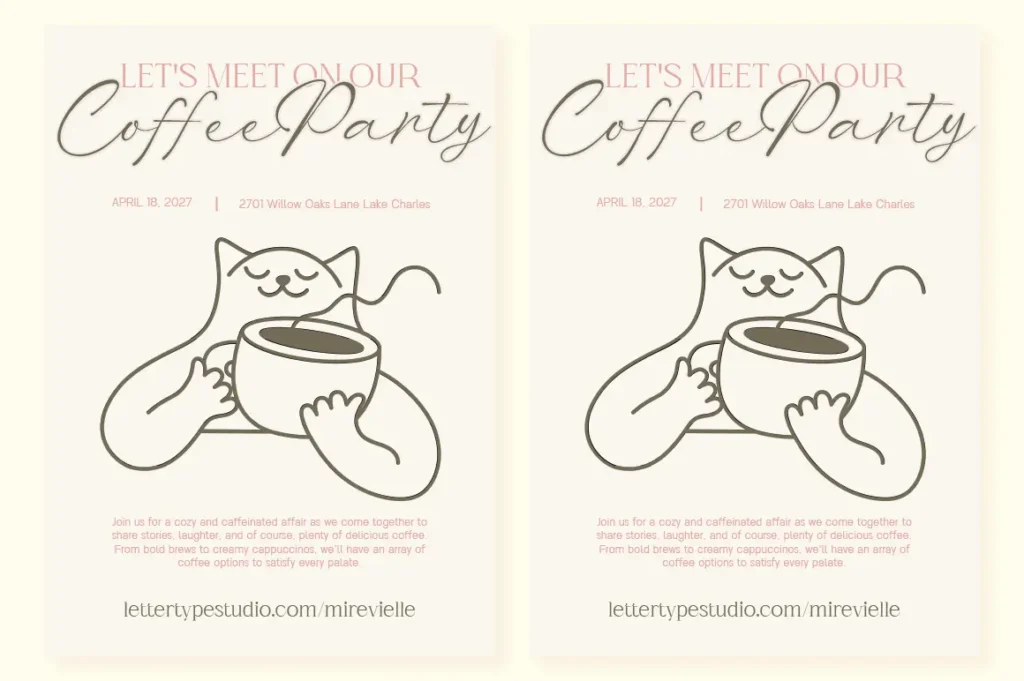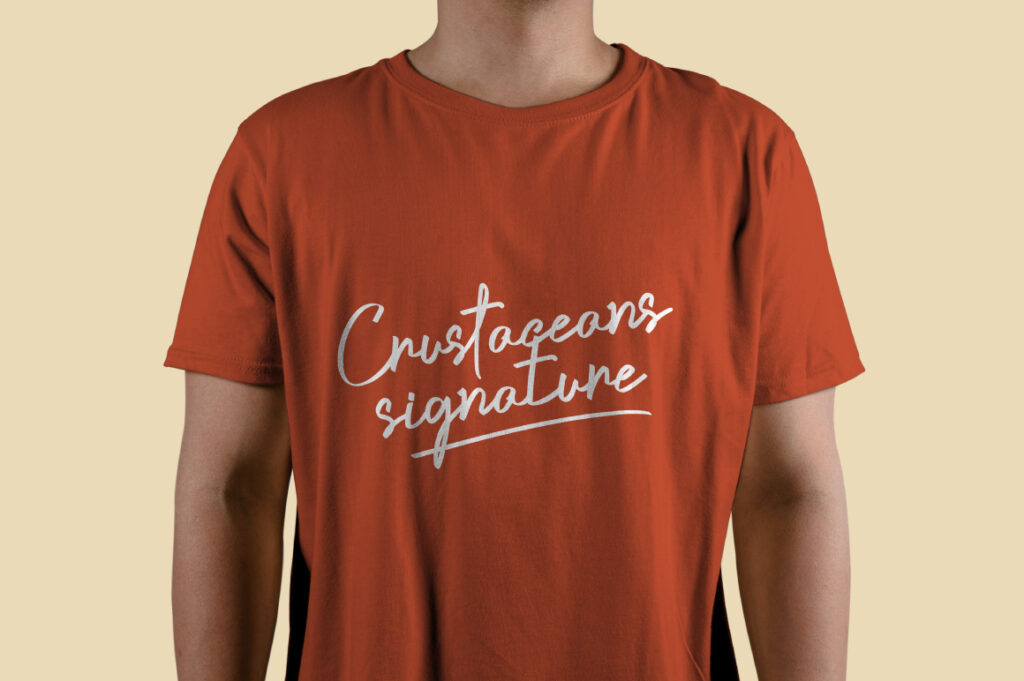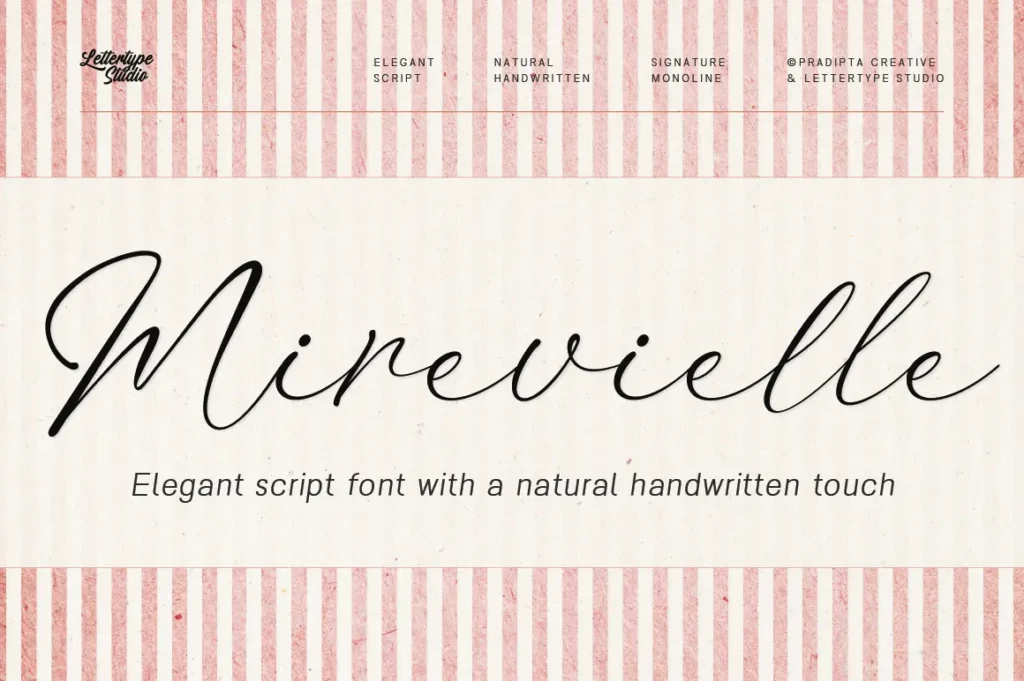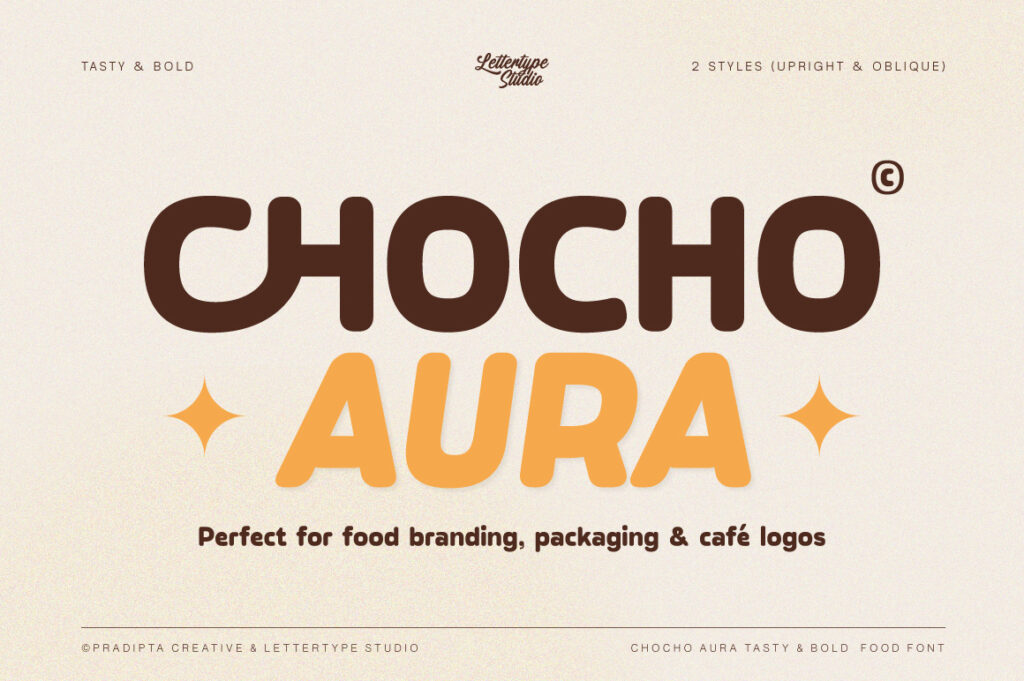
Script fonts have become a timeless favorite in the design world. From branding and packaging to social media and wedding stationery, script fonts bring personality, emotion, and a human touch that other font styles simply can’t replicate.
In this article, we’ll explore five of the most used script font styles today—and recommend professional script fonts from the Lettertype Studio catalog that perfectly represent each category.
1. Signature Script Fonts
Signature scripts are designed to look like natural handwriting—personal, elegant, and expressive. This style is widely used for logos, personal brands, fashion labels, and premium products.
Why designers use them:
Feels authentic and personal
Strong emotional connection
Perfect for luxury and lifestyle branding
Recommended from Lettertype Studio:
Mirevielle
Crustaceans Signature
These fonts balance smooth strokes and organic flow, making them ideal for branding that wants to feel exclusive yet approachable.
2. Modern Brush Script Fonts
Brush script fonts are bold, energetic, and full of movement. Inspired by real brush lettering, this style is extremely popular for posters, merchandise, and social media graphics.
Why designers use them:
Strong visual impact
Expressive and dynamic
Perfect for headlines and statements
Recommended from Lettertype Studio:
Bold Marker
These fonts shine when used at larger sizes and bring a handcrafted, creative vibe to any design.
3. Calligraphy Script Fonts
Calligraphy scripts are rooted in traditional lettering techniques, offering graceful curves and elegant contrast. They are commonly used for wedding invitations, certificates, and editorial designs.
Why designers use them:
Elegant and timeless
Classic luxury aesthetic
Ideal for formal and ceremonial designs
Recommended from Lettertype Studio:
Mirevielle
These fonts deliver a refined look while remaining readable and versatile for both print and digital use.
4. Casual & Playful Script Fonts
Not all scripts are formal. Casual script fonts are relaxed, friendly, and fun—perfect for children’s products, creative brands, and informal designs.
Why designers use them:
Friendly and approachable
Great for playful branding
Adds warmth and personality
Recommended from Lettertype Studio:
Chocho Aura
These fonts work beautifully for projects that need to feel joyful, youthful, and expressive.
5. Monoline Script Fonts
Monoline scripts use consistent stroke weight, making them clean, modern, and highly legible. This style is extremely popular in minimalist branding and digital design.
Why designers use them:
Clean and modern appearance
Excellent readability
Perfect for logos and web use
Recommended from Lettertype Studio:
Sigmature Monoline
Monoline scripts are especially effective for contemporary brands that want simplicity without losing character.
Final Thoughts
Script fonts remain one of the most used and versatile font styles in modern design. Whether you’re working on a luxury logo, a playful poster, or a clean digital brand, there’s always a script font that fits the mood.